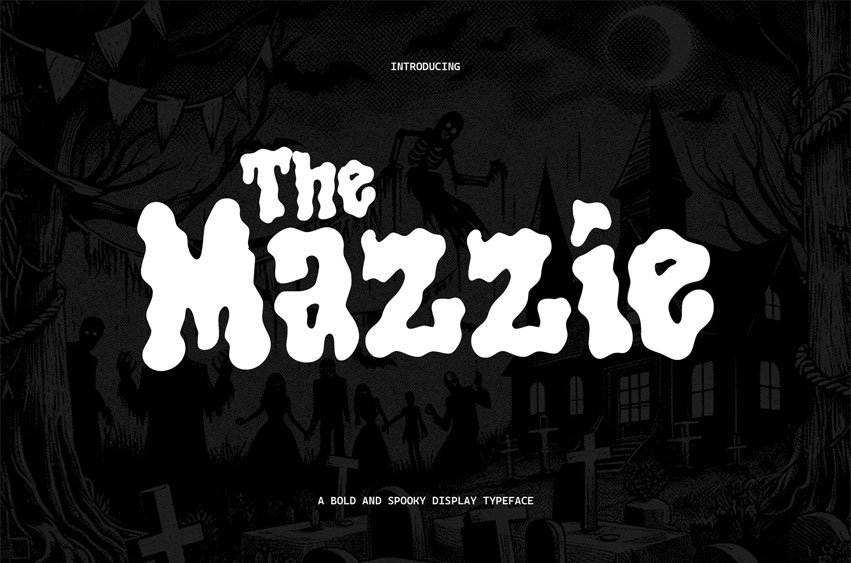
Mazzie Font is a bold and spooky display typeface designed to capture the eerie atmosphere of Halloween. With its melting, blob-like letterforms and retro psychedelic vibes, this font brings a perfect mix of horror and playfulness to your designs.
Its organic and irregular shapes make it ideal for projects that need a creepy yet eye-catching headline.